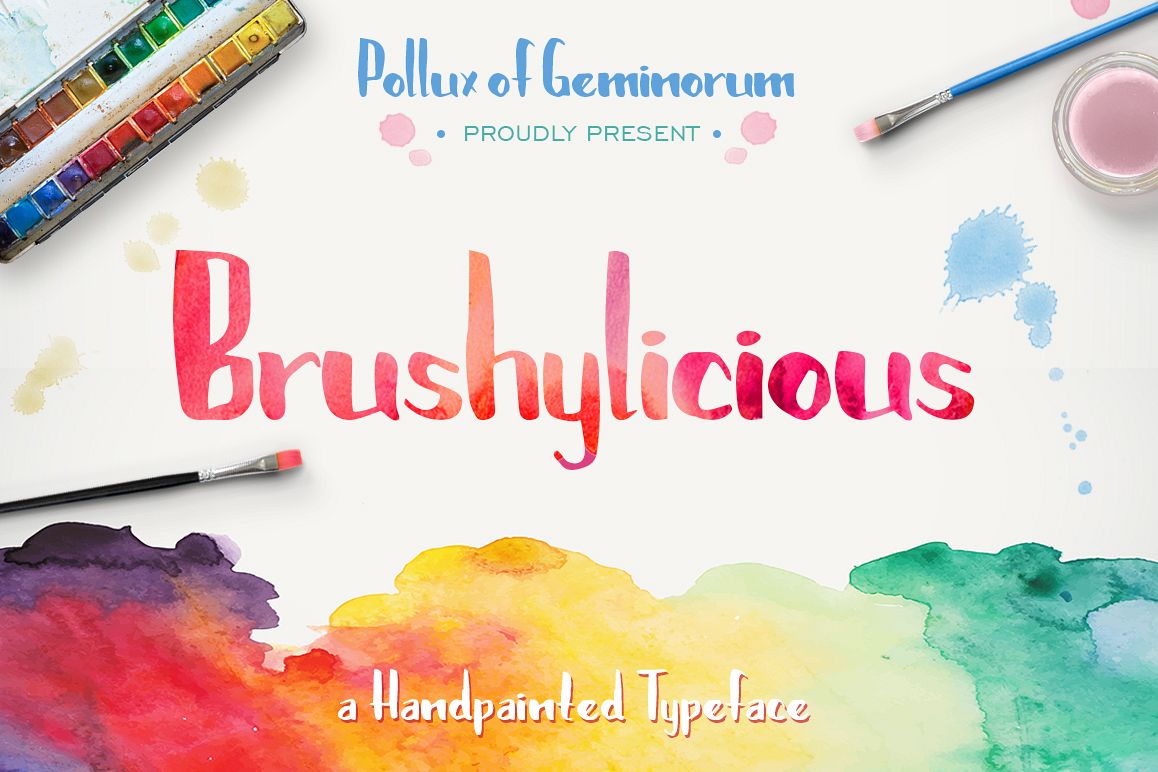
Brushylicious
Brushylicious.
If you are looking for authentic brush strokes, Brushylicious will please you with its gorgeous hand-drawn font.
Its natural brush strokes also help accentuate its letters to make a stand of its own.
Brushylicious will work very well on any design projects, such as logos, headlines, ads, book covers, or branding related to travel and women’s content.
As a hand-painted brush font, Brushylicious offers a complete package, too. Has included numbers and punctuation.
Moreover, there is a multilingual support to guarantee every design could meet their exact needs.